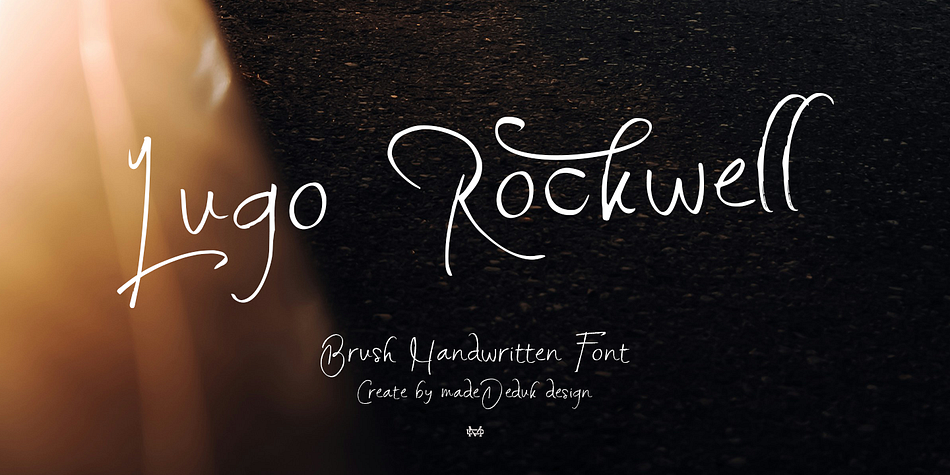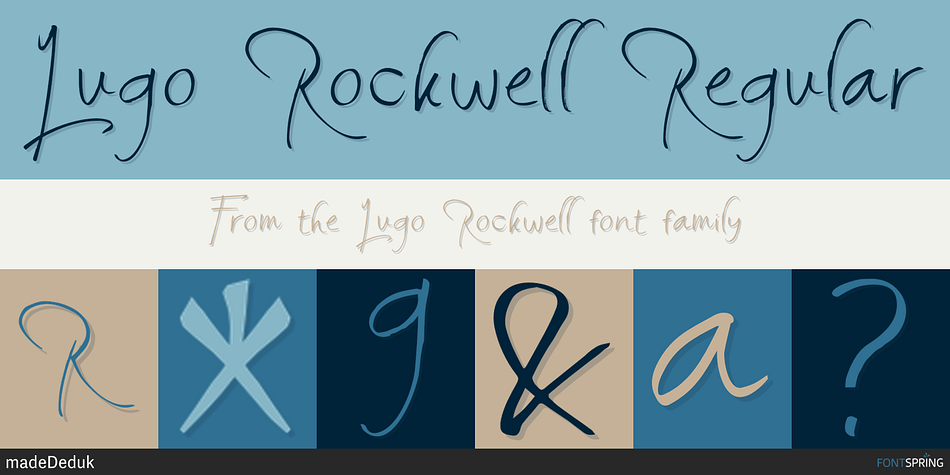
Lugo Rockwell Regular
Designed by Suandana Ipandemade, Lugo Rockwell is a brush script font family published by madeDeduk.
Introduce Lugo Rockwell is a brush vintage handwritten font to give an incredible impression for all your project design come with a lot ligatures and Alternative to make everything look realistic handmade handwritten.
- Ligature
- Alternative